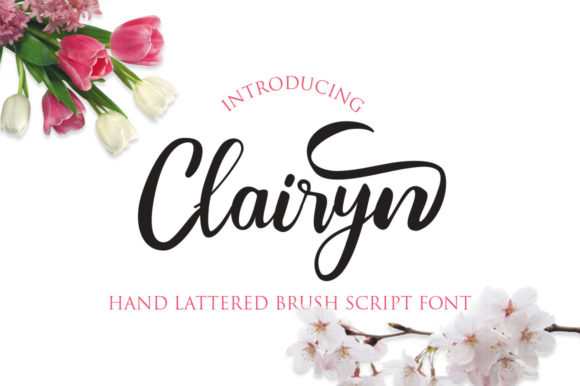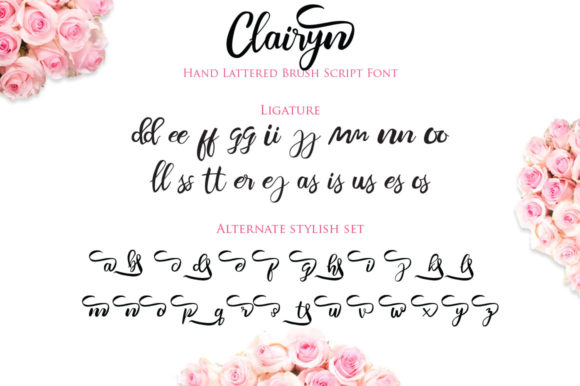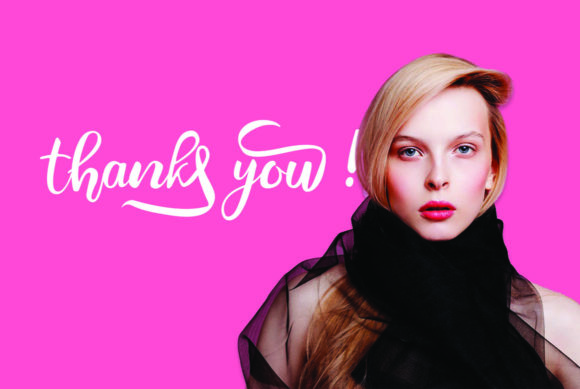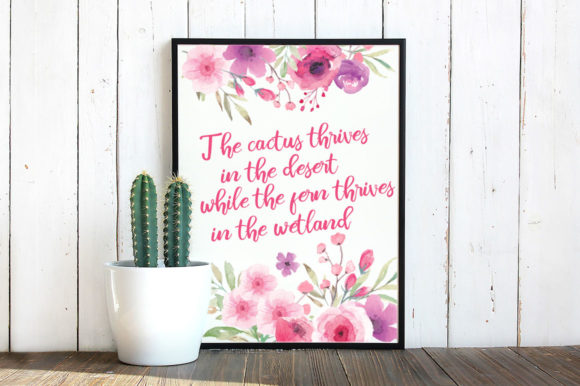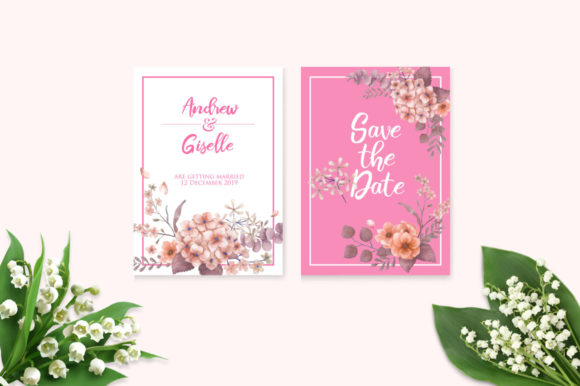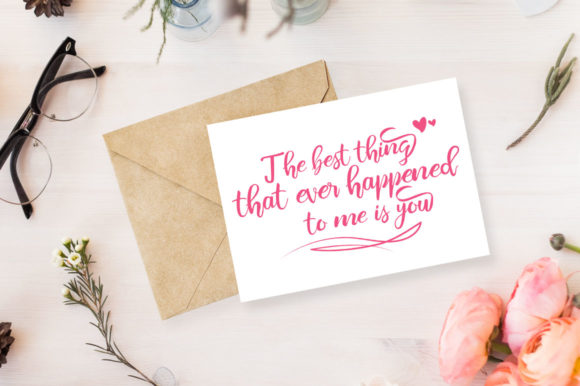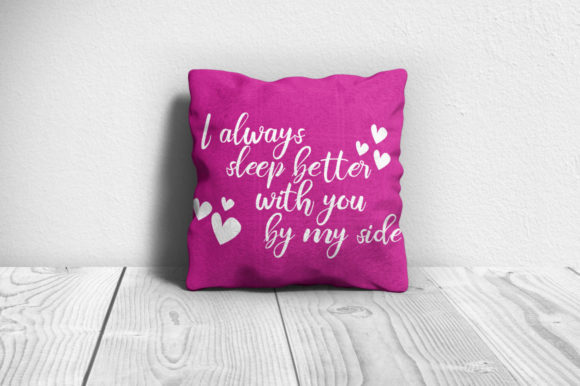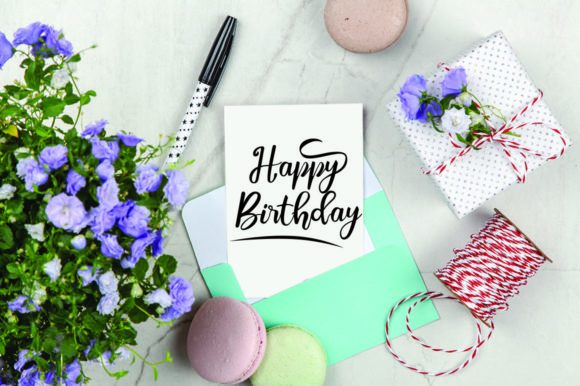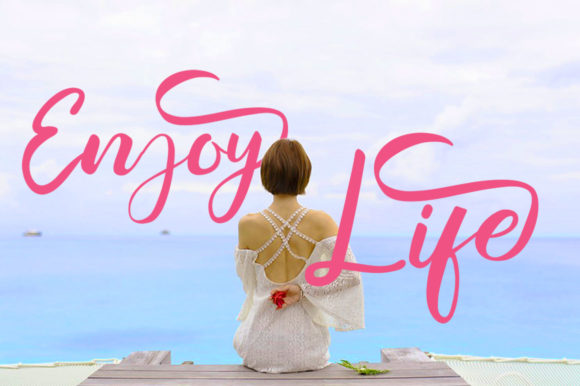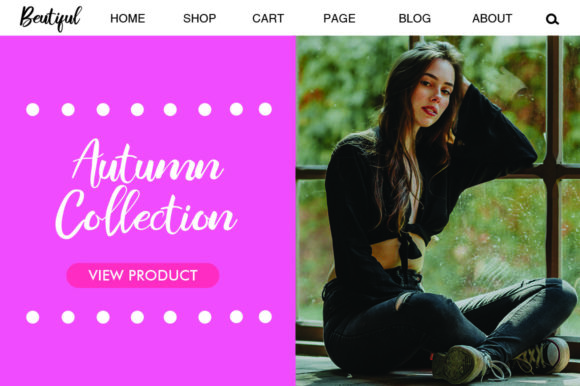
Clairyn Font
About Clairyn Font
Clairyn is an equally casual and lovely script with a romantic feel. Fall in love with its incredibly authentic charm!